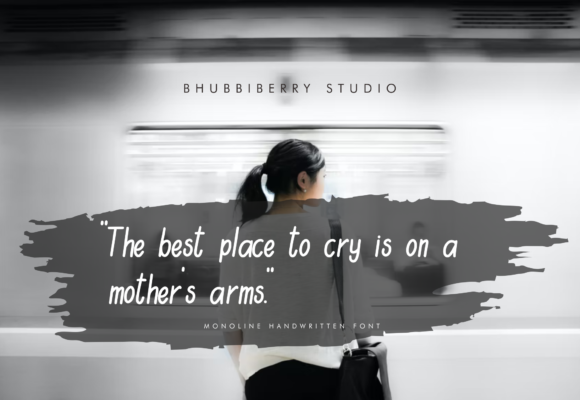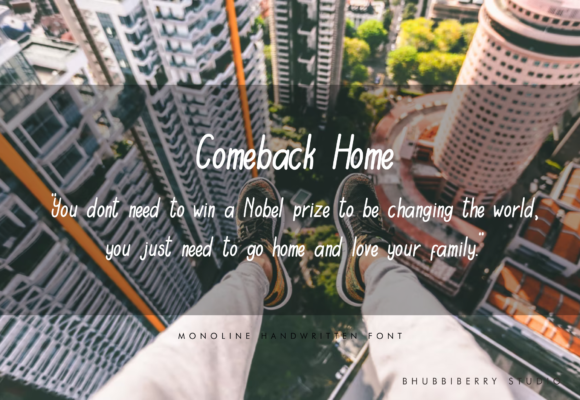
St. Dawn Font
db-ku.com - Script & Handwritten -- St. Dawn is a clean and simple handwritten font. This gentle font will look gorgeous on a variety of design ideas. It will add a joyful and adaptable touch to each of your projects!